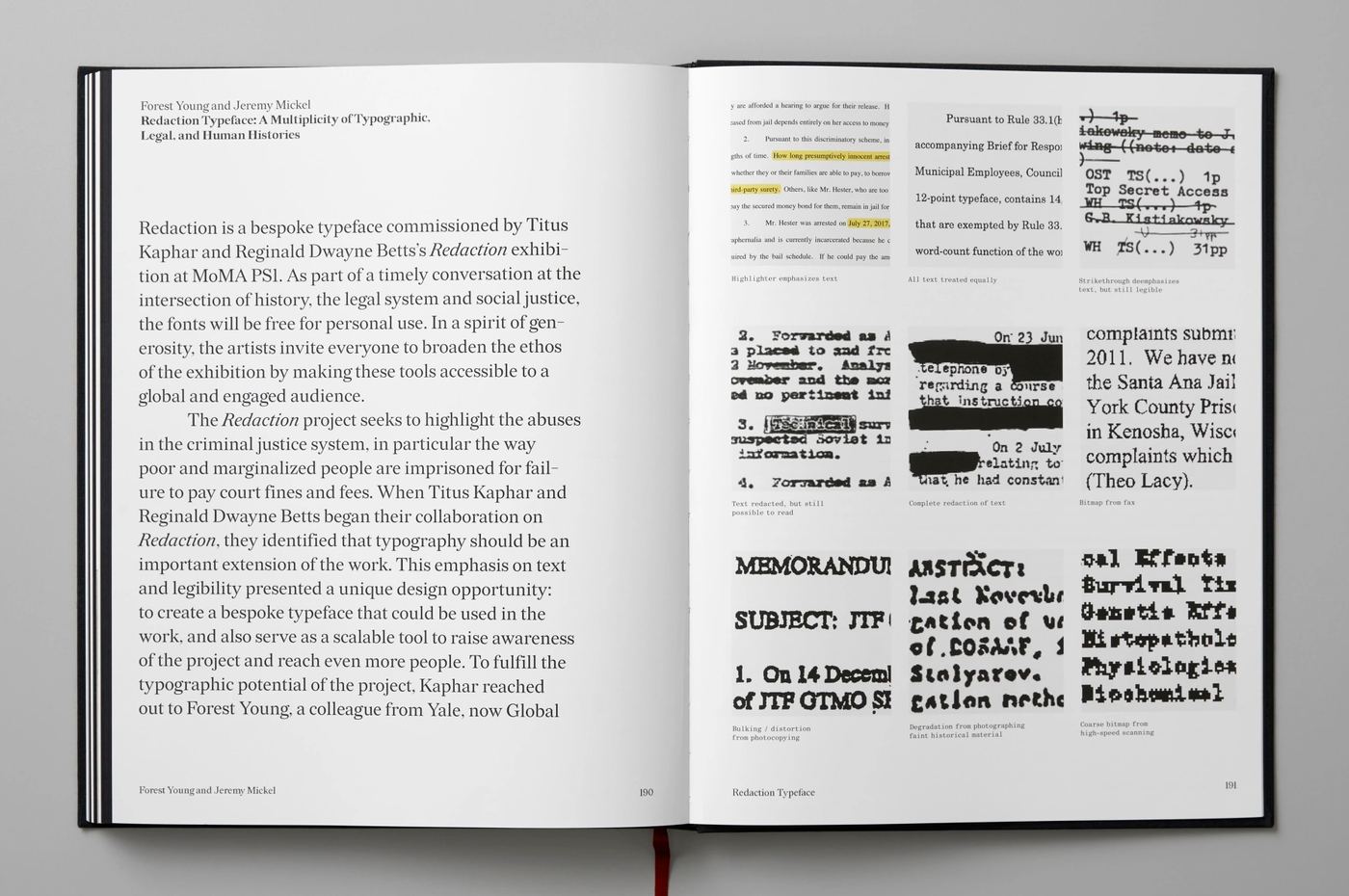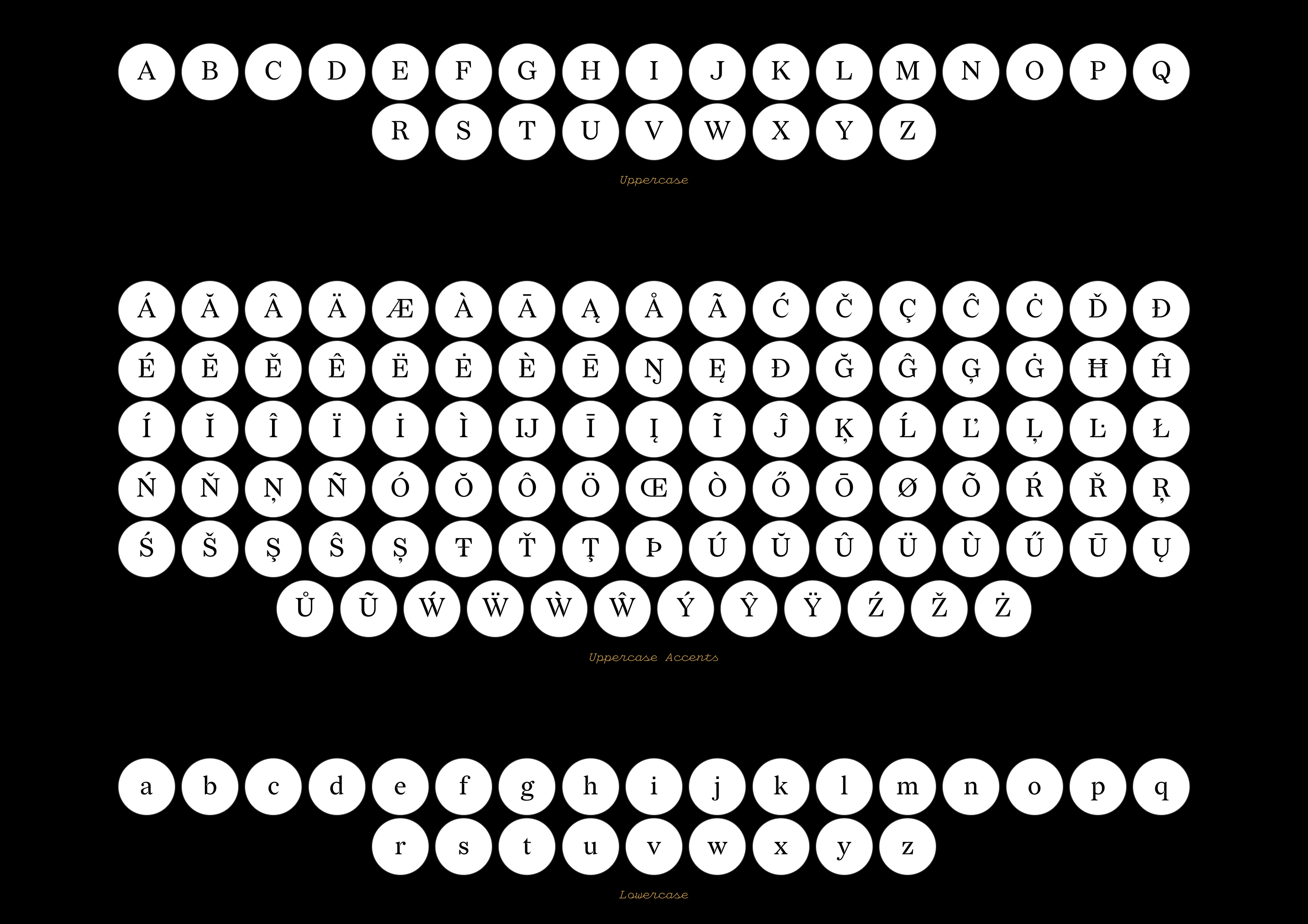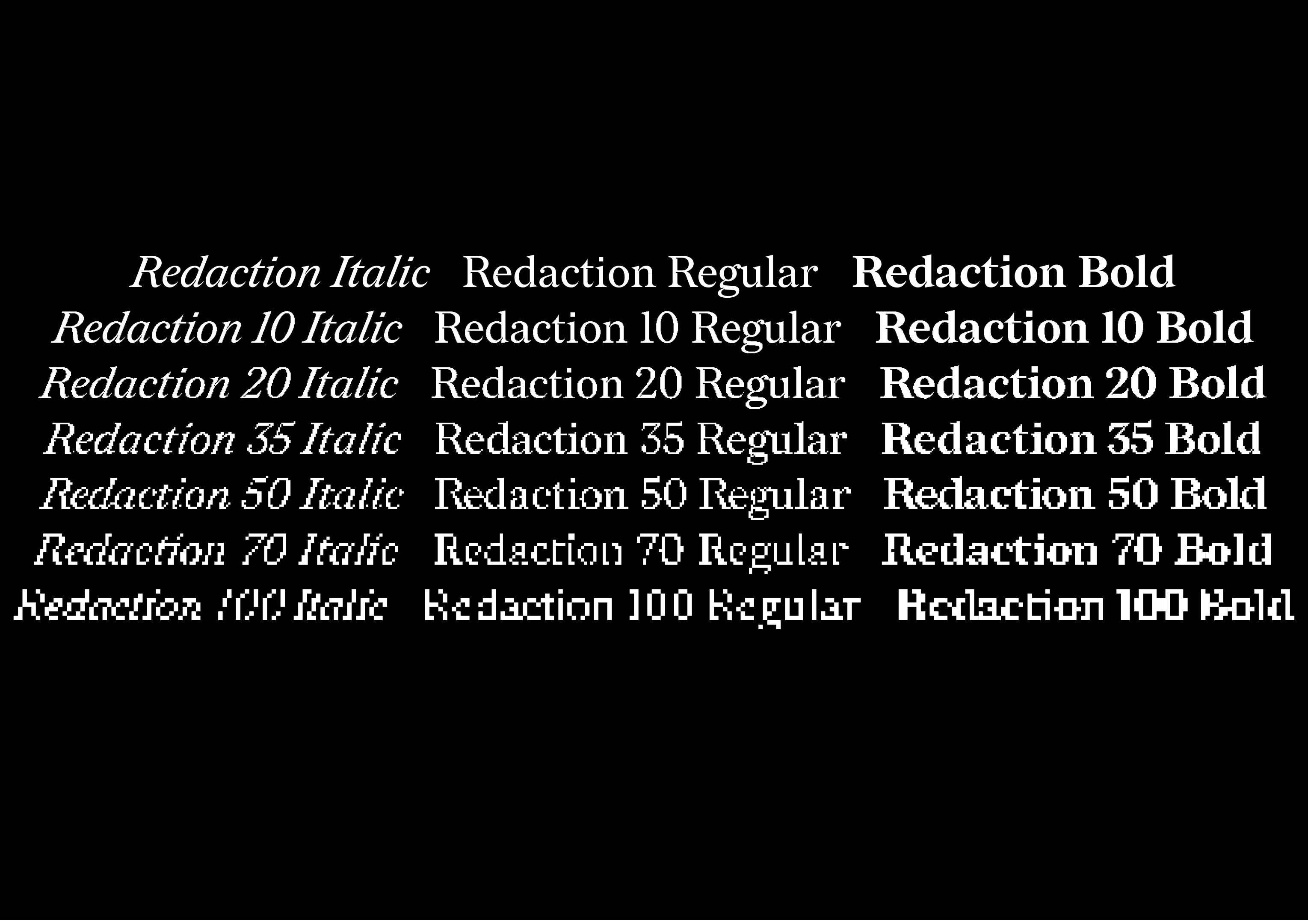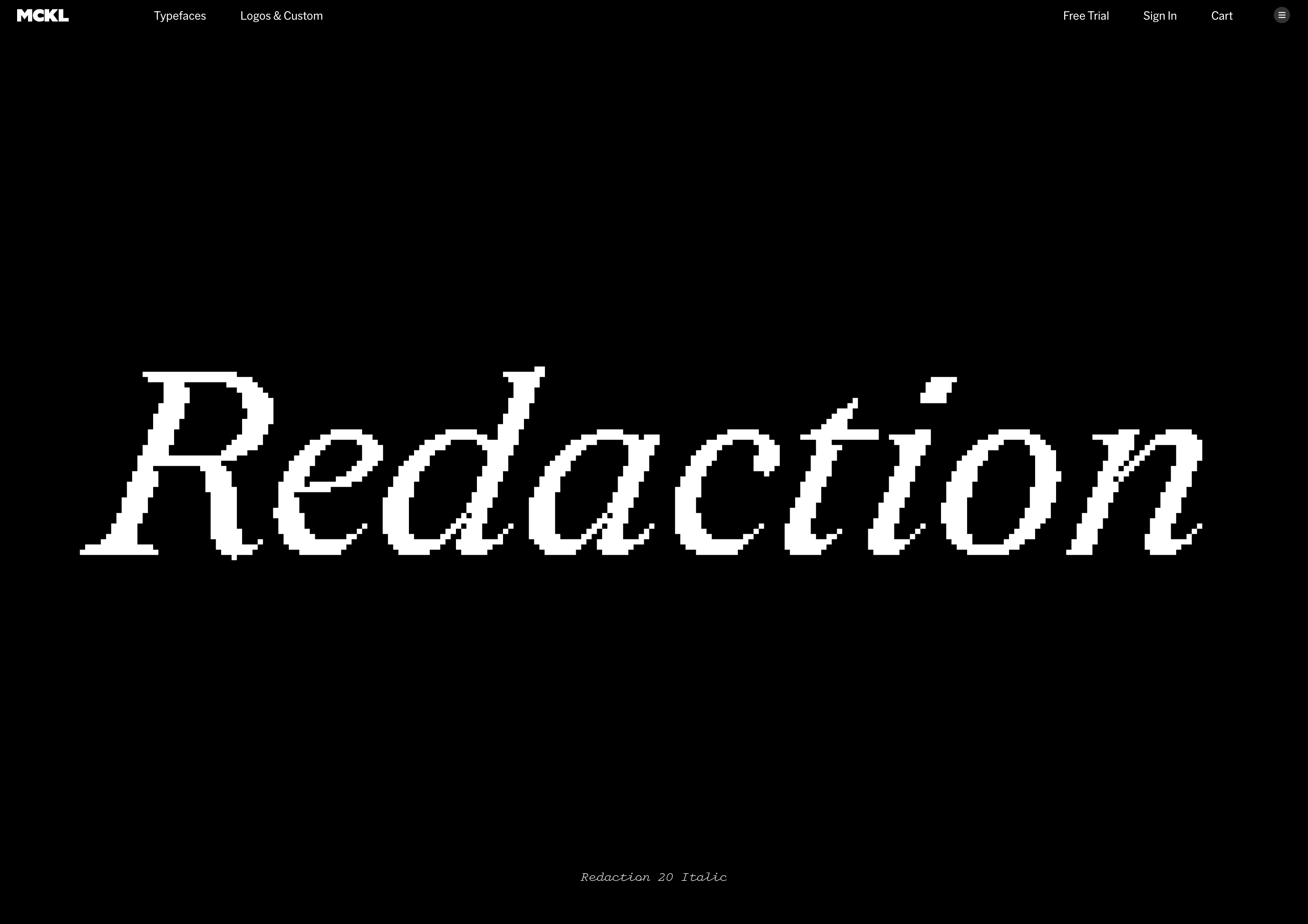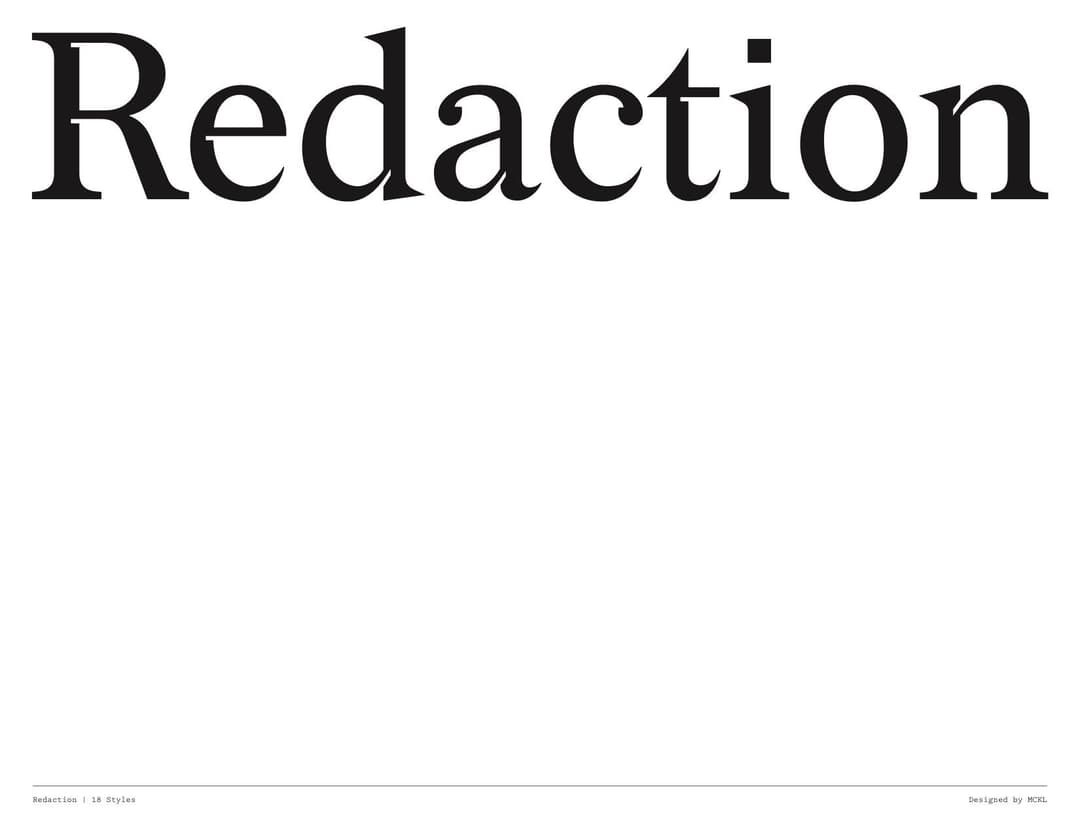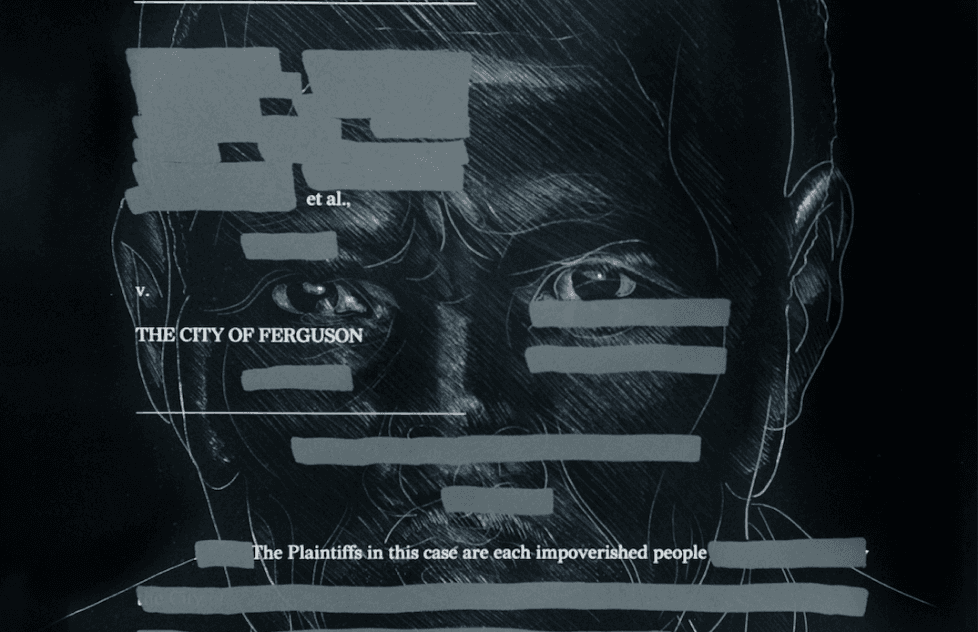
Redaction
- 21 styles 7 optical grades, 2 weights each Roman and Italic
- Designed by Jeremy Mickel Published in 2019, updated in 2021
- Creative direction by Forest Young
Redaction is a custom typeface commissioned for Titus Kaphar and Reginald Dwayne Betts’ The Redaction collaboration at MoMA PS1, about the unconstitutional cash bail system. The fonts take inspiration from US legal typography, including Times New Roman and Century Schoolbook. There are special bitmap versions of the fonts, referencing the degradation of documents in the legal system.